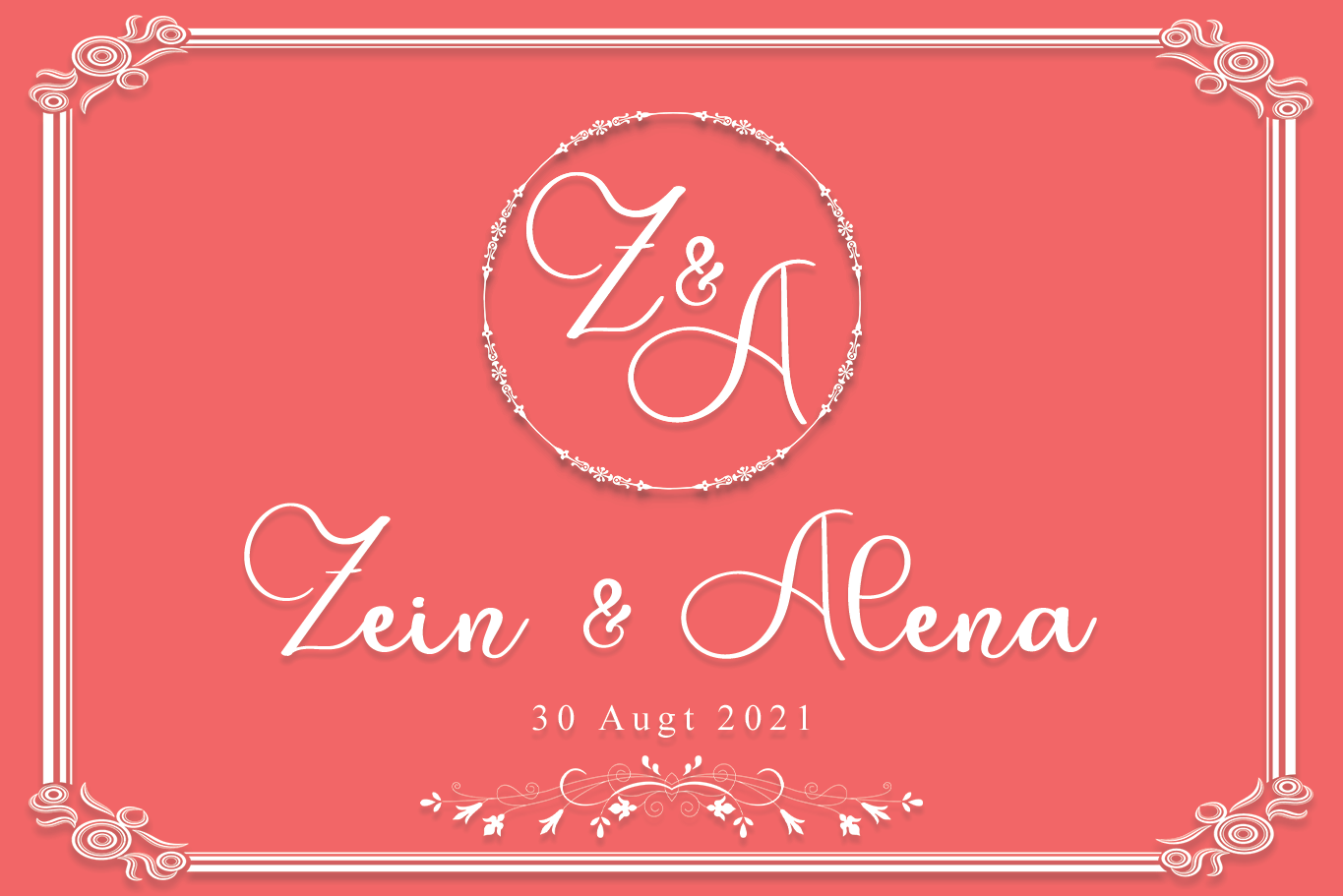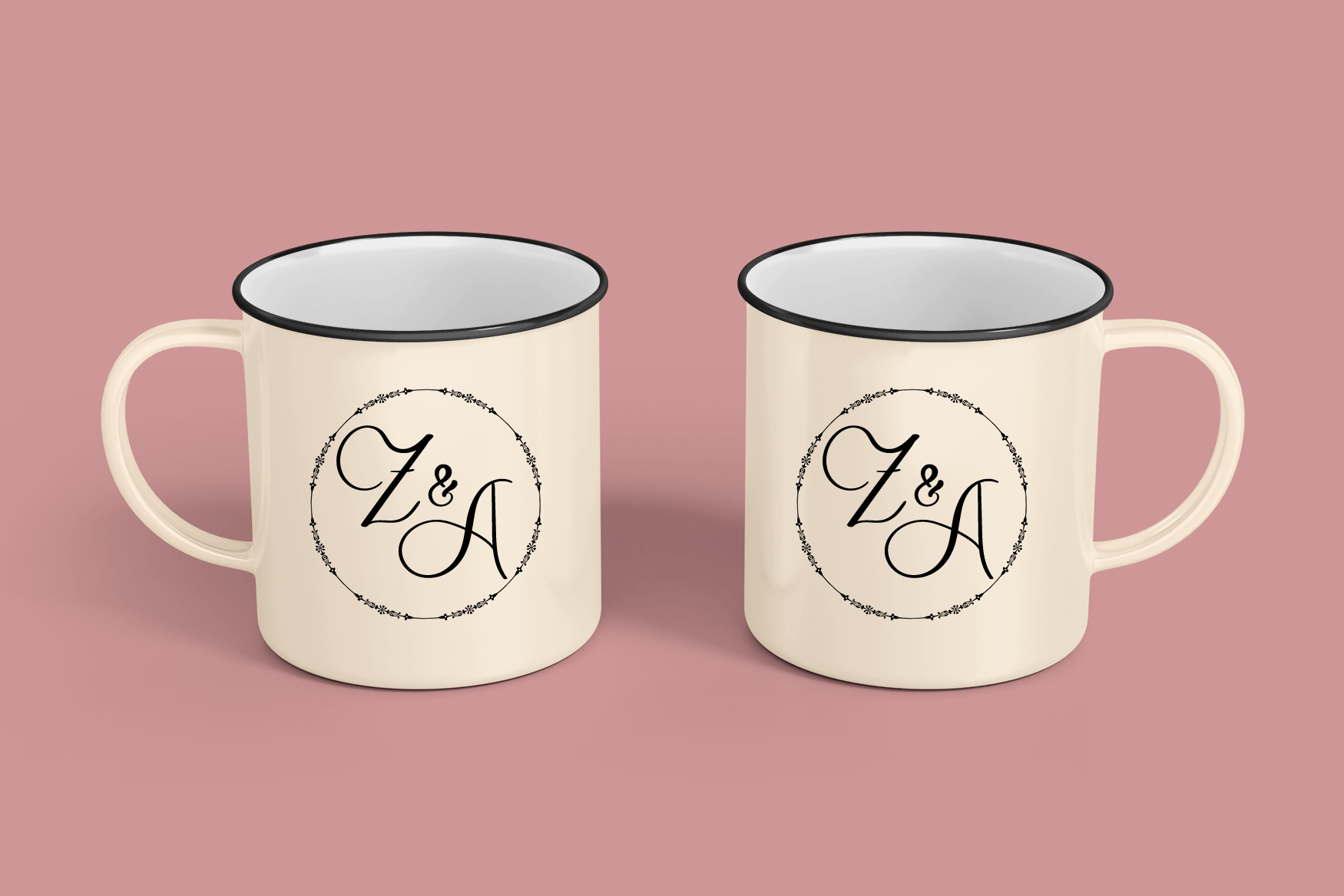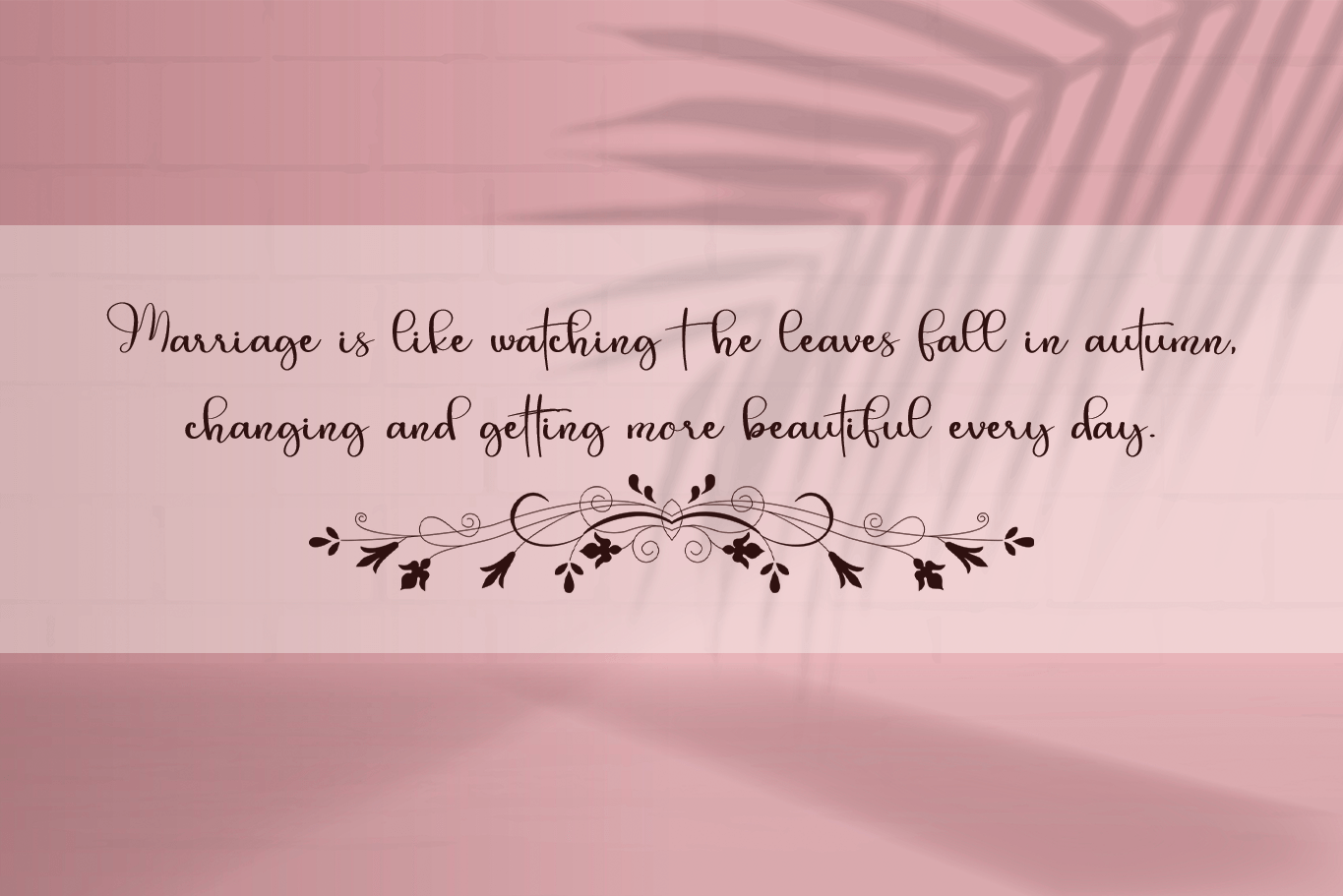
Memorial Day Font
Memorial Day Calligraphy Font
This font feels equally charming and elegant. It looks stunning on wedding invitations, thank you cards, quotes, greeting cards, logos, business cards and every other design which needs a handwritten touch.